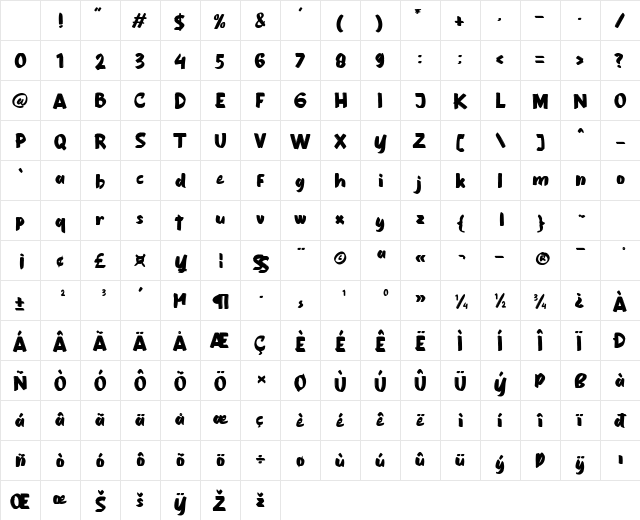
Complete Monarchia Momentum Regular glyph index. Displaying only characters natively supported by Monarchia Momentum Regular font.
Monarchia Momentum is a composed and adaptable typeface that performs quietly and consistently across a wide range of design contexts.